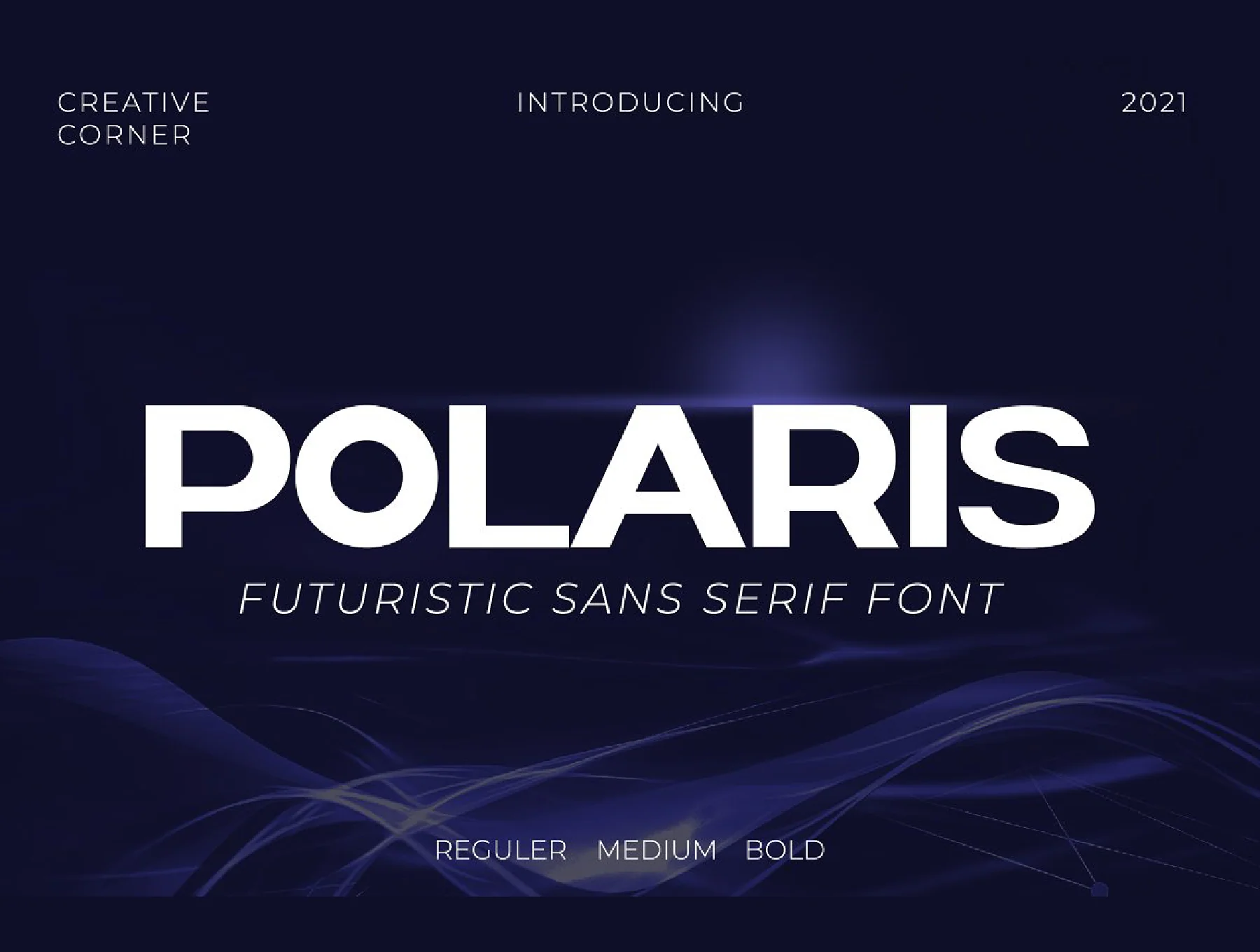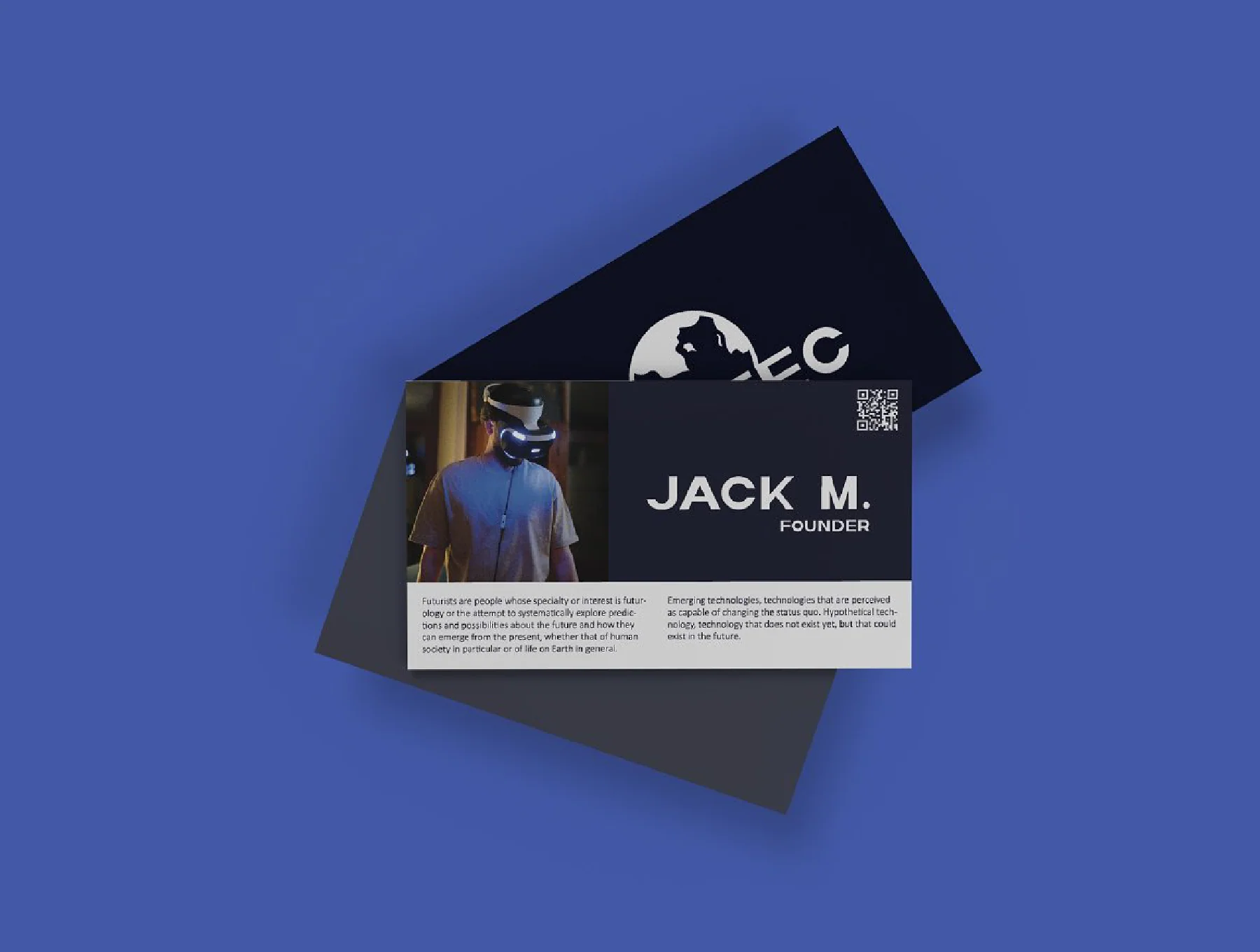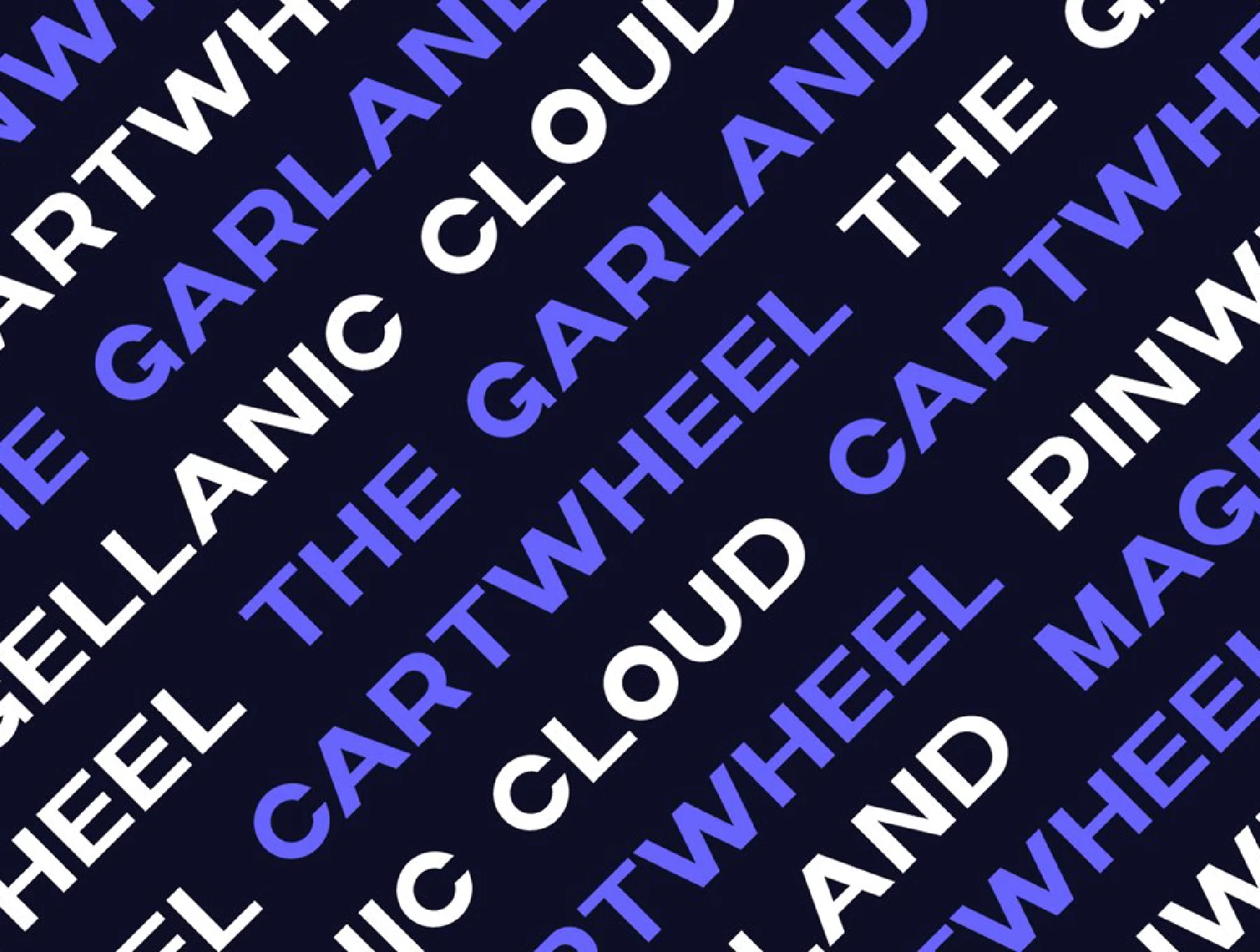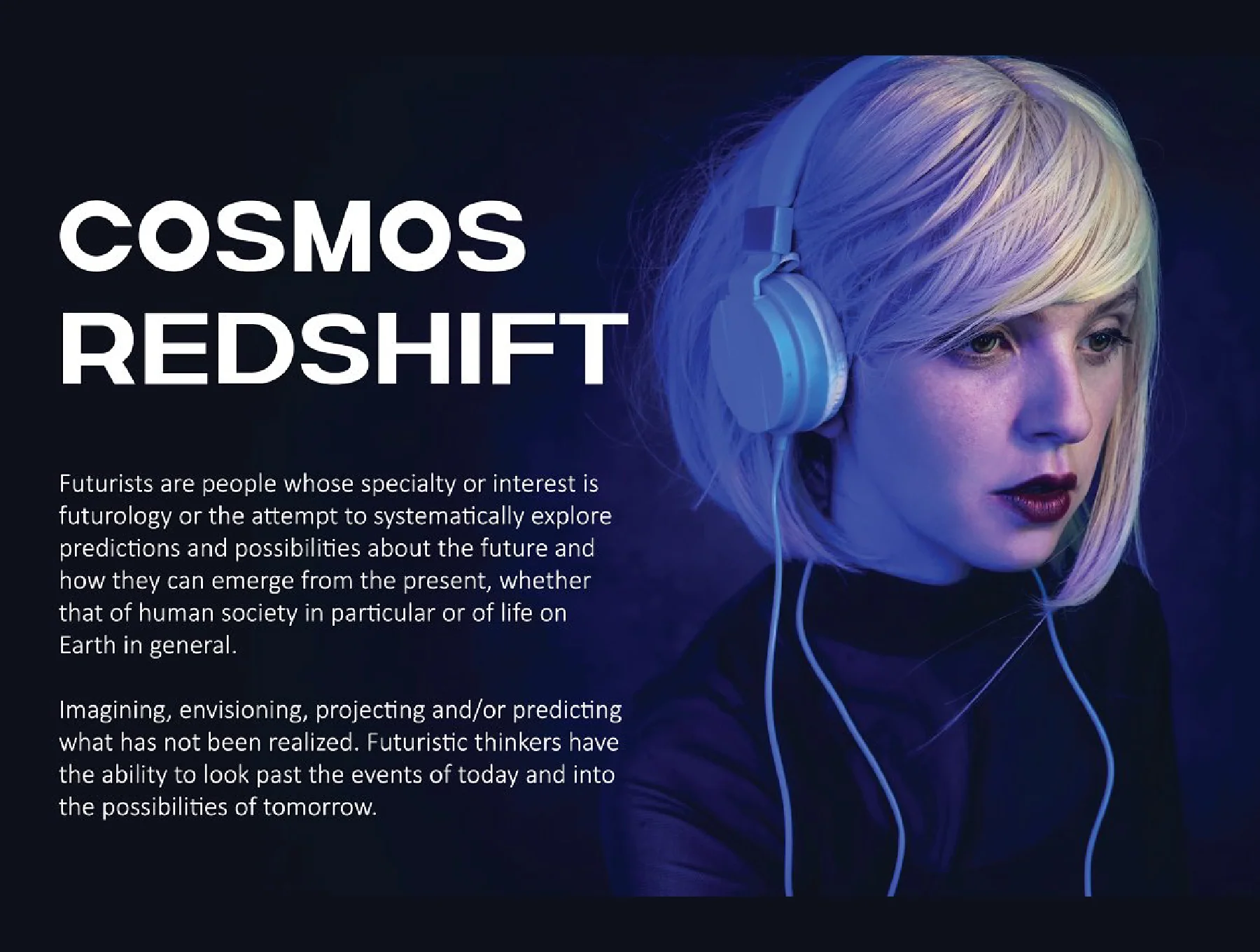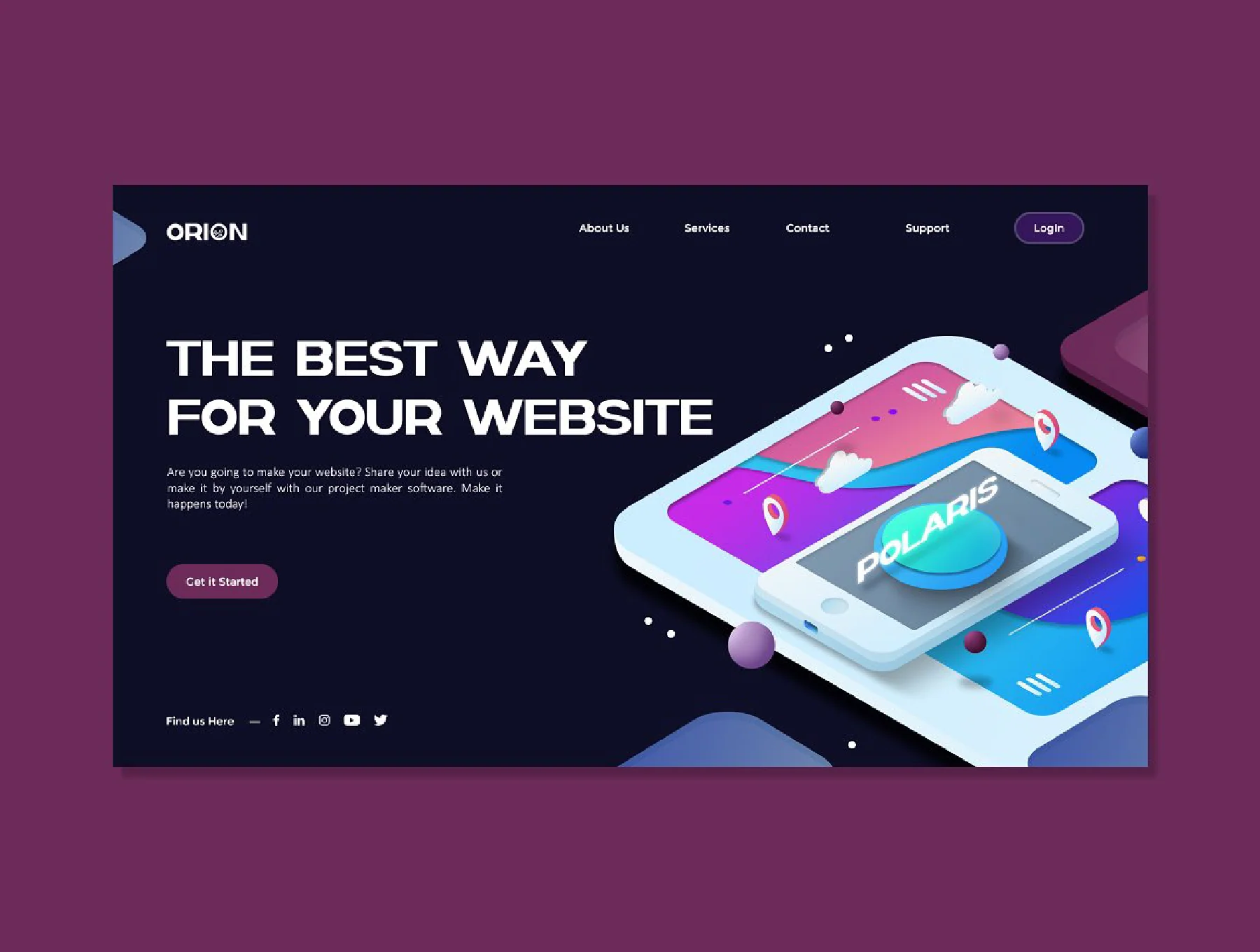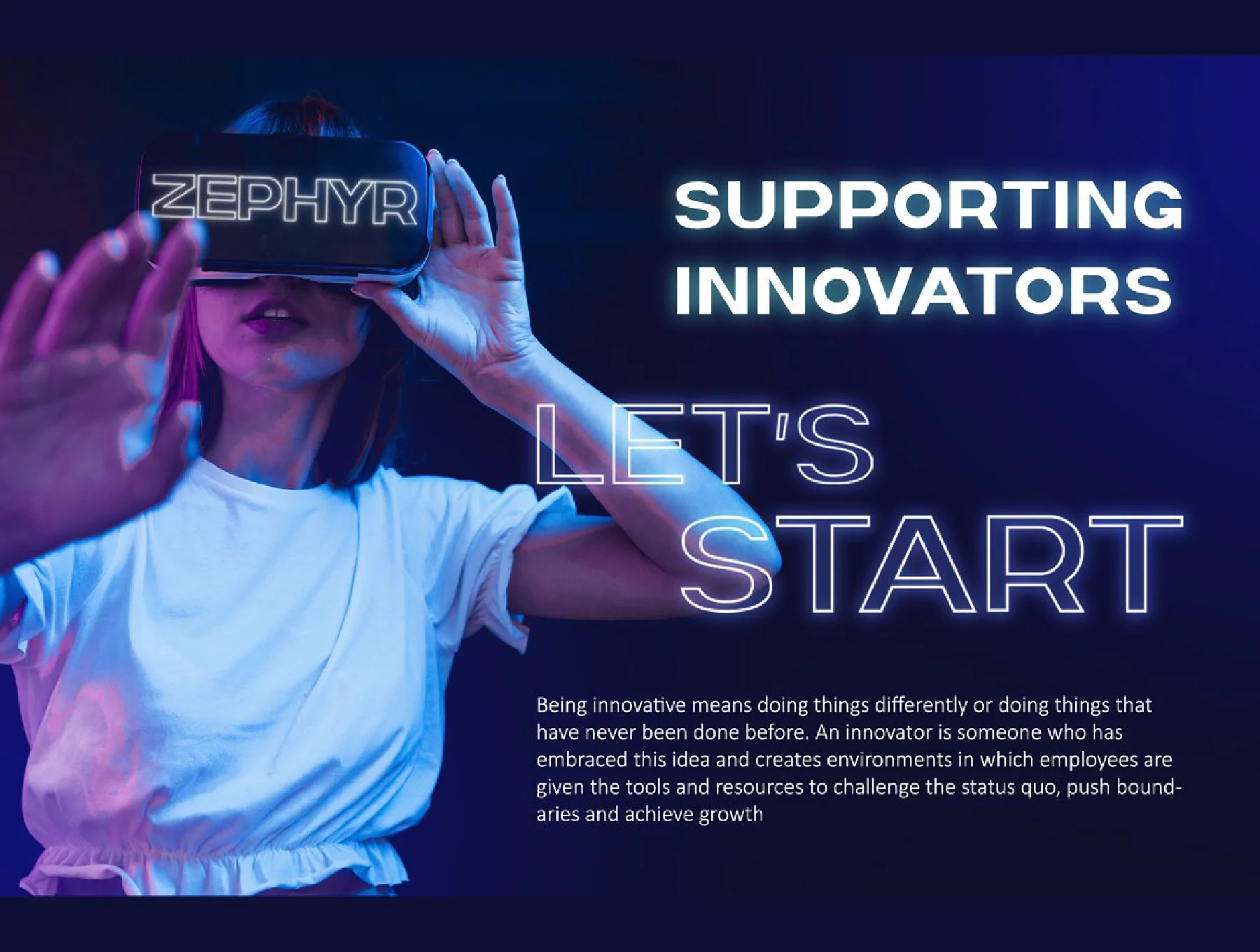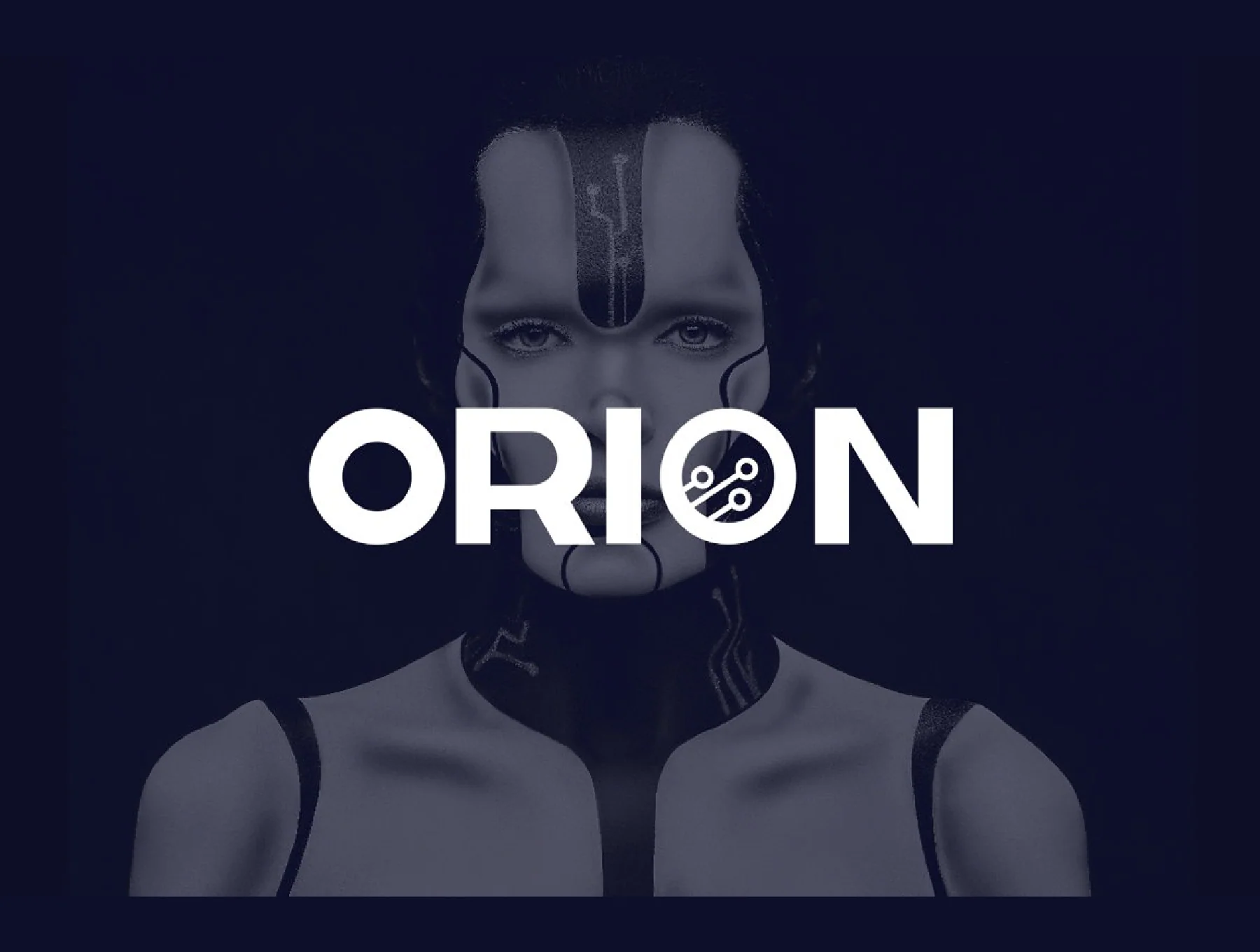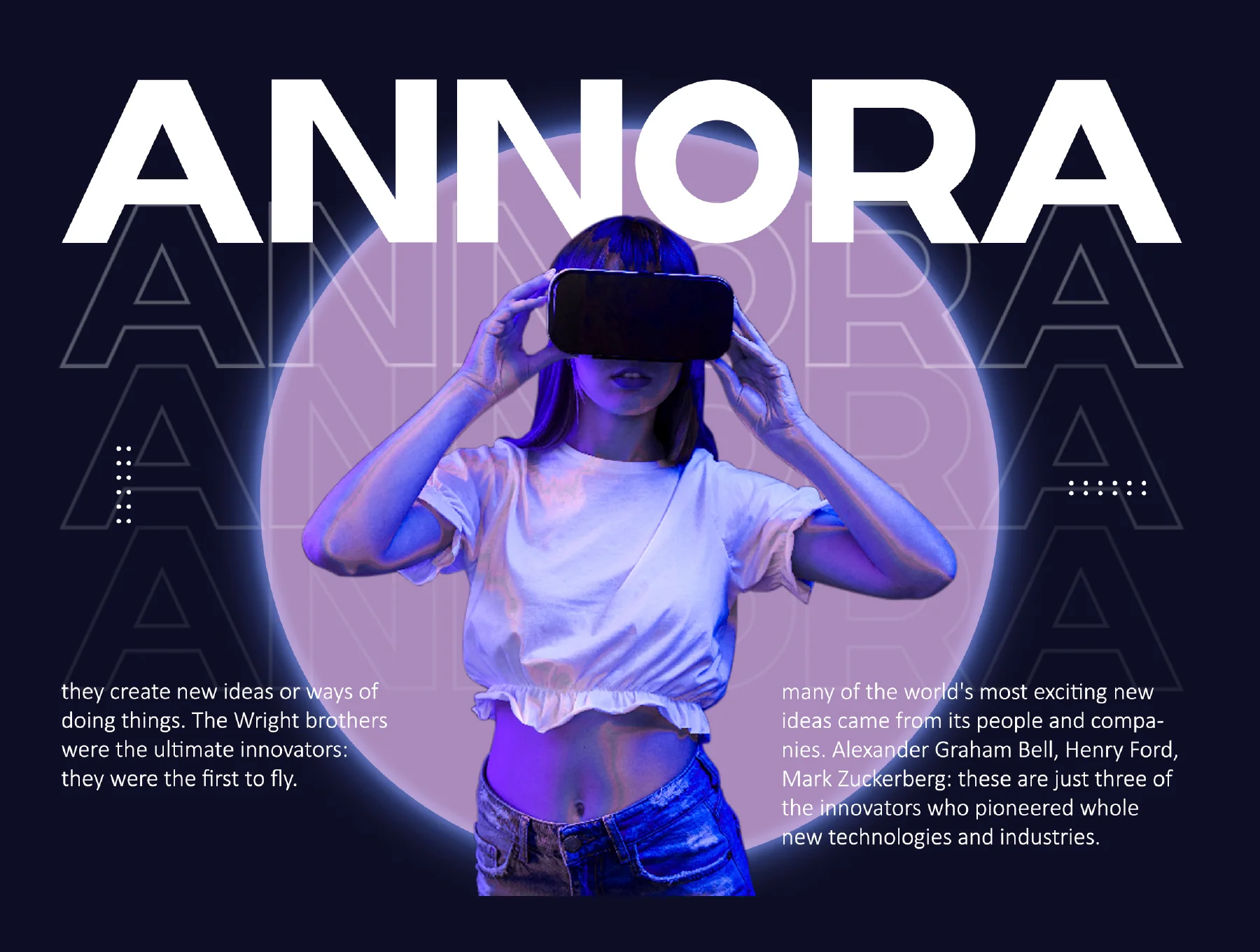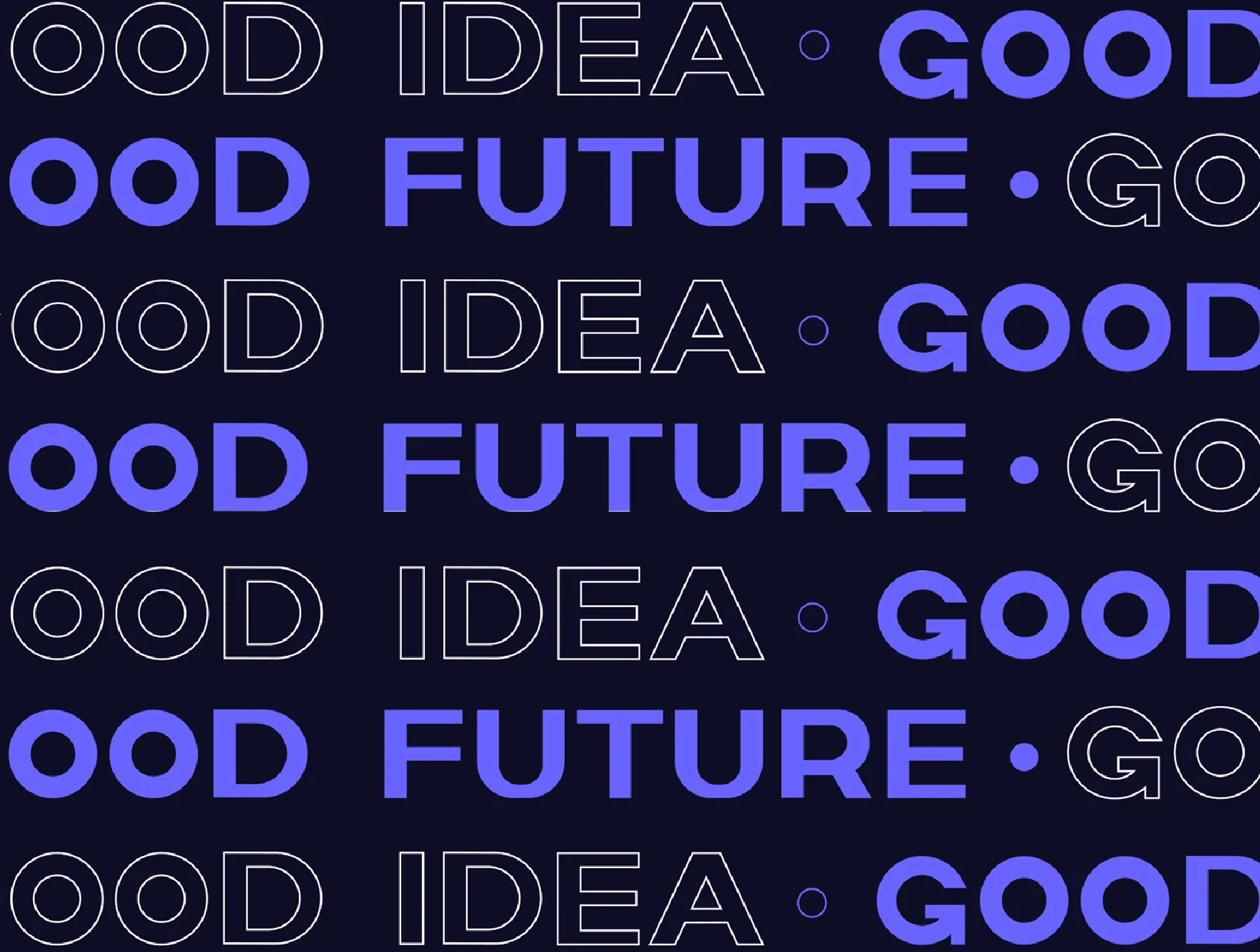
Polaris Futuristic Bold Typeface
Polaris Futuristic Bold is a strong modern sans serif, highly versatile and effective at both large and small sizes.
AuthorCreative Corner
Three font weights
All caps styling
Numbers and punctuation
Meet Polaris Futuristic Bold, a sleek, powerful sans serif font built for modern design. Its flexible style performs well at both large and small sizes, making it ideal for branding, logos, apparel, packaging, magazine titles, and stylish text overlays on any background image.